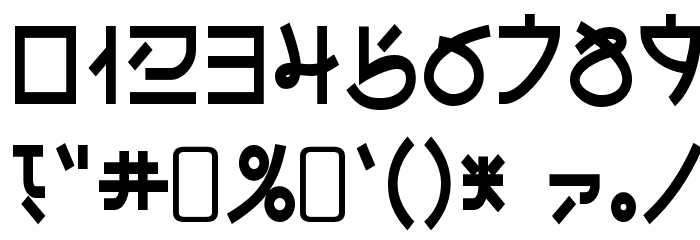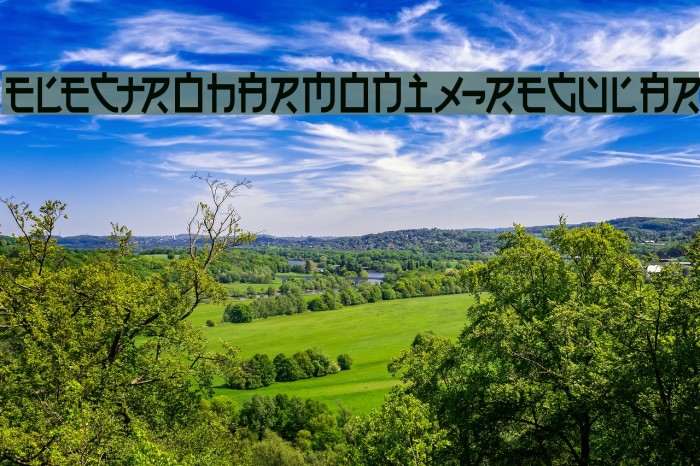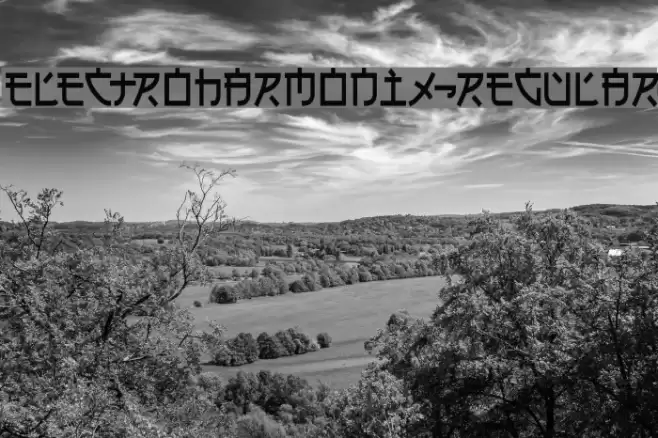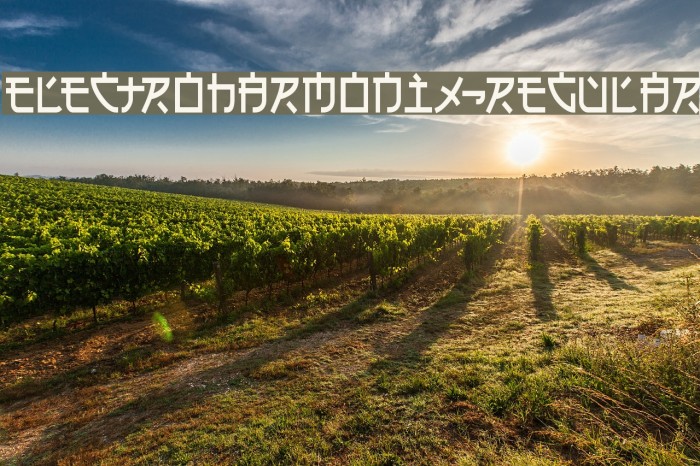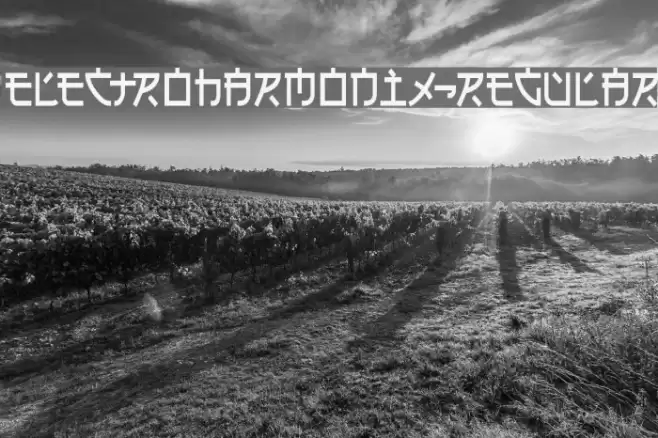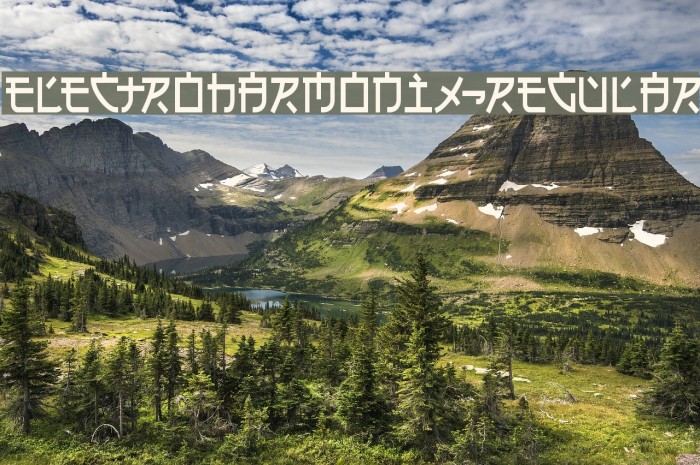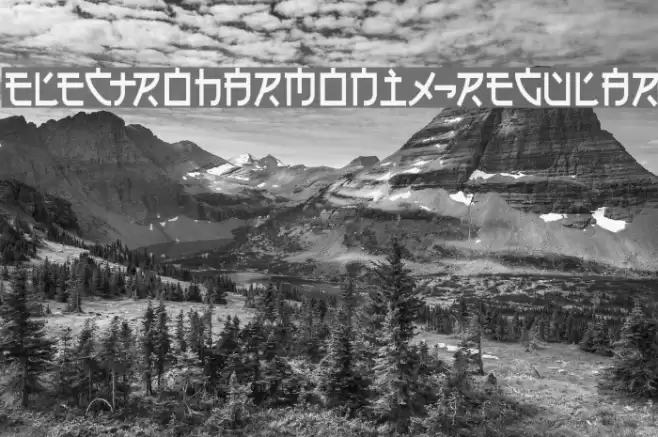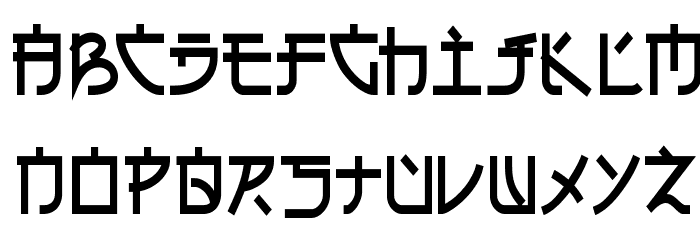
Electroharmonix-Regular Font
Electroharmonix-Regular Description
This font features a bold and geometric design with a futuristic flair. The characters are constructed with sharp angles and clean lines, giving it a modern and edgy appearance. The uppercase letters are particularly striking, with a unique style that emphasizes symmetry and balance. The lowercase letters maintain the same geometric aesthetic, ensuring consistency throughout the typeface. The numerals and special characters are designed to complement the overall style, making this font versatile for various applications.
| Use Case | Logos, Headlines, Posters |
| Proposed Projects | Ideal for technology branding, sci-fi posters, video game titles, and modern advertising campaigns. |